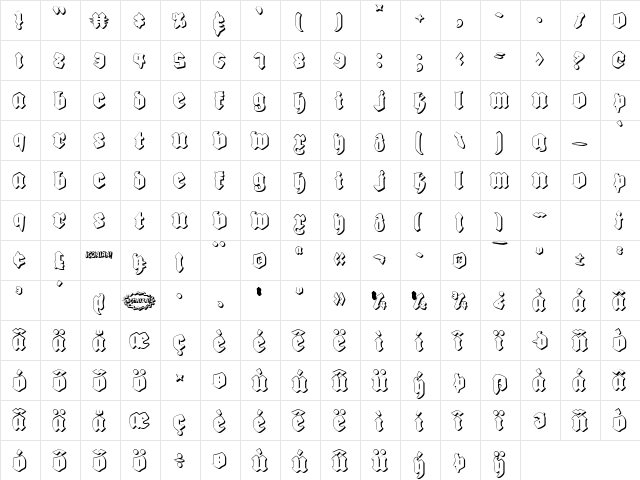
Biergen Shadow Shadow Free Font
Biergen Shadow Shadow
Style: Shadow
Design Context for Biergen Shadow
Biergen Shadow is built around its visual character rather than neutral utility - its distinctive forms are designed to make an impression at display sizes.
Font Pairing: Pair with a clean neutral sans-serif for body copy to let Biergen Shadow's character lead without overwhelming the composition.
Pro Tip: Use Biergen Shadow exclusively at display sizes - it was designed to be seen, not read at length. Let a neutral companion handle body copy.